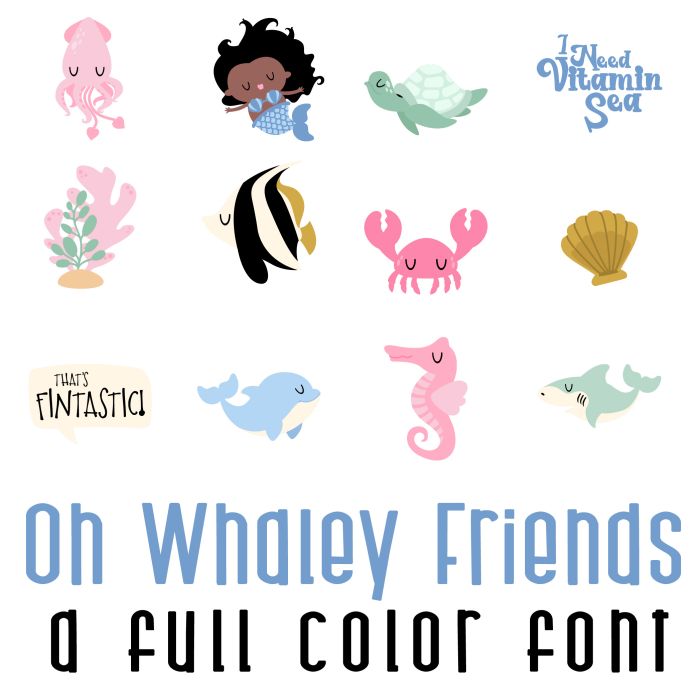
This fun full color font features 26 sea animals and ocean life and puns perfect for parties, cardmaking, classrooms, scrap book pages, planner stickers and more!